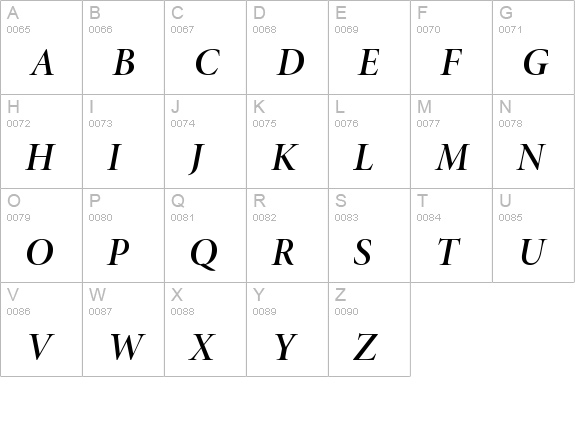
Minion Pro Semibold Italic Display Font Details
Minion Pro Semibold Italic Display is a sub-bold, structured, italic variant in the Minion typeface family \xE2\x80\x94 well suited to sub-headlines and emphasised passages.
Minion Pro Semibold Italic Display font is a versatile and elegant typeface that exudes sophistication and professionalism. Its bold and italic design adds an extra touch of flair, making it perfect for titles, headings, and other display purposes. The sturdy serifs and slightly slanted characters give it a modern yet timeless appeal, making it suitable for a wide range of design projects. This font is perfect for creating eye-catching designs that demand attention and convey a sense of style. Whether you're designing a poster, flyer, or website header, Minion Pro Semibold Italic Display font will help your text stand out and make a lasting impression. The best part is that this font is freely available to download at FontsMarket.com. So you can easily access this high-quality typeface without any cost, allowing you to elevate your designs without breaking the bank. Don't miss out on the opportunity to enhance your projects with the elegance and versatility of Minion Pro Semibold Italic Display font.